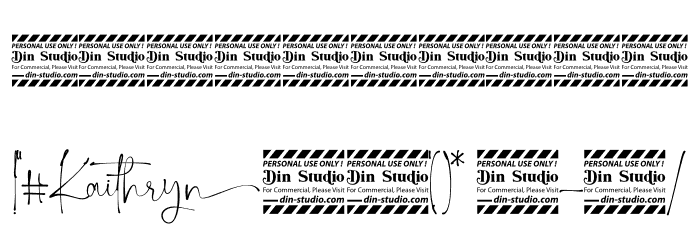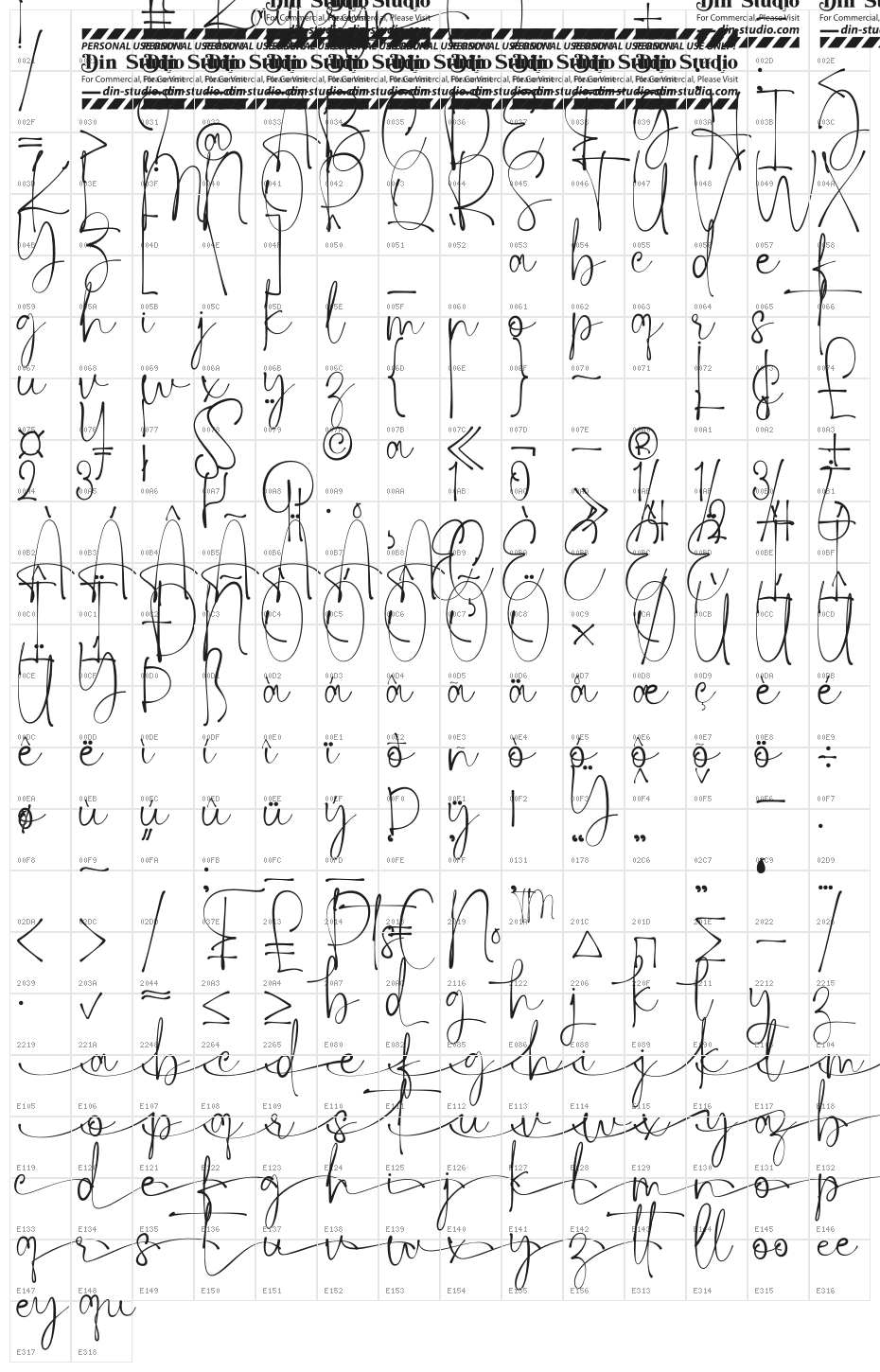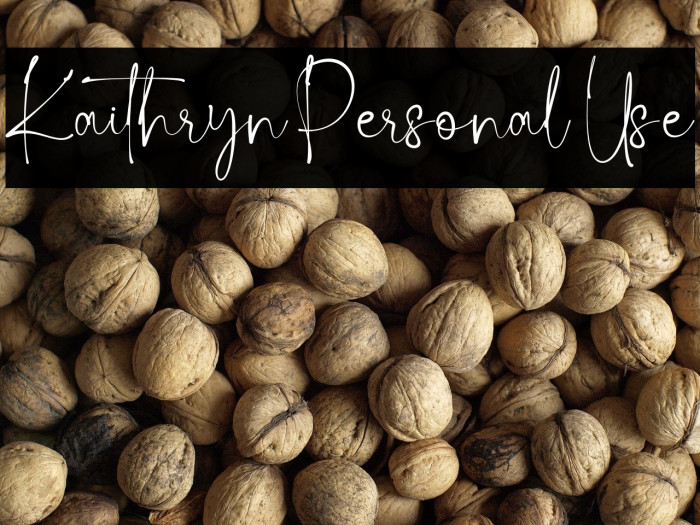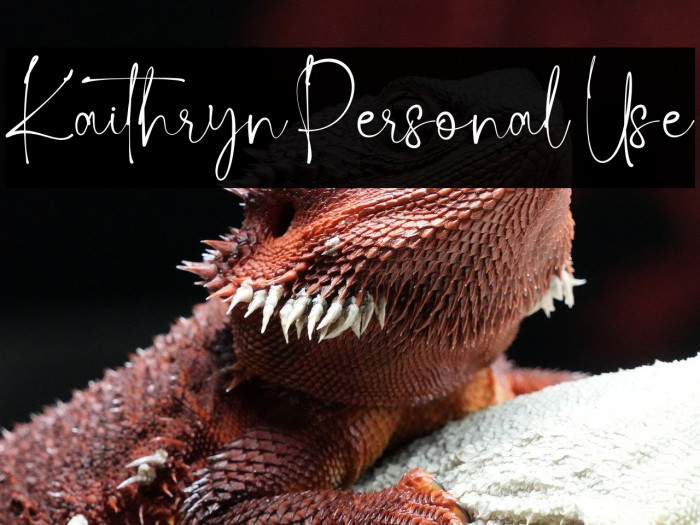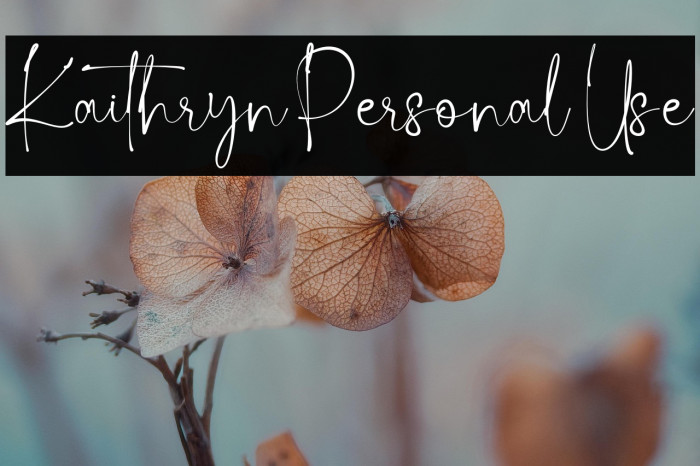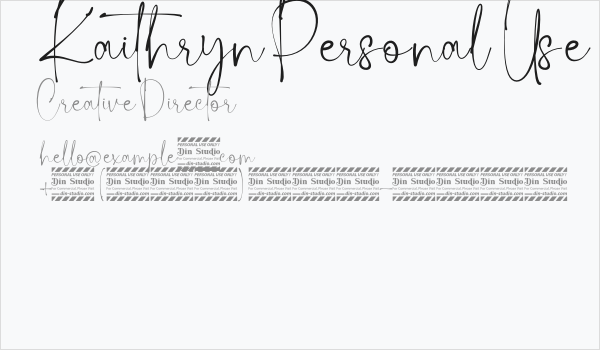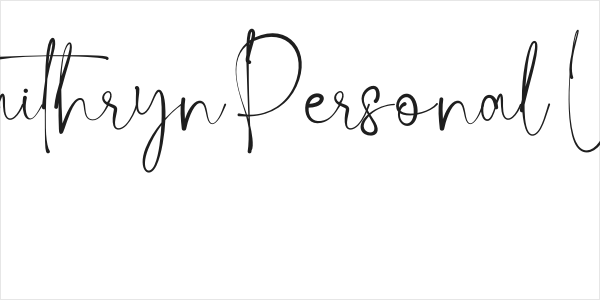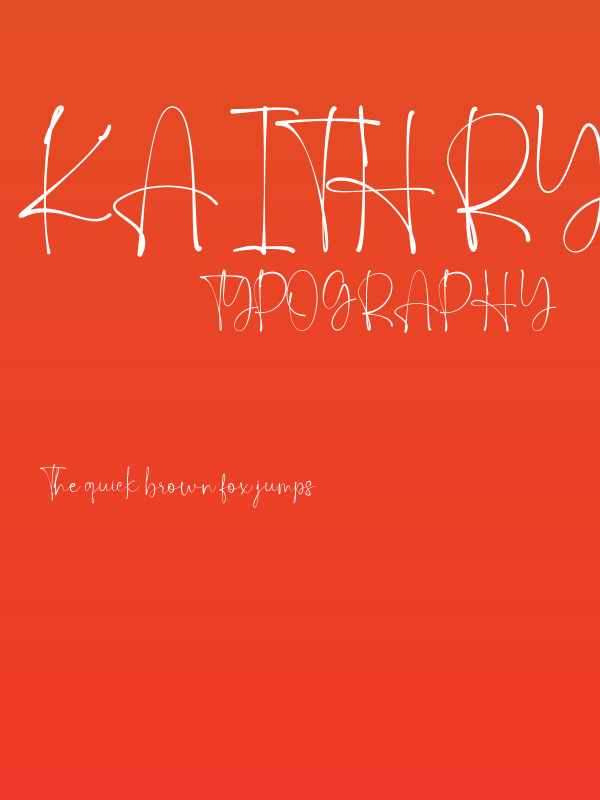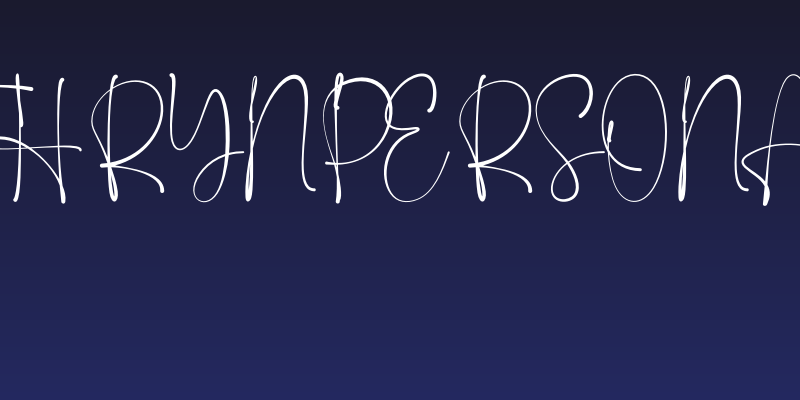
Kaithryn Personal Use Font
Kaithryn Personal Use Description
This font features a whimsical and elegant handwritten style, characterized by its flowing and interconnected letterforms. The uppercase letters are tall and slender, with a playful looped design that adds a touch of sophistication. The lowercase letters maintain a consistent fluidity, with some characters extending below the baseline, enhancing its artistic flair. The numbers and special characters are crafted with the same attention to detail, ensuring a cohesive look throughout. This font's unique style makes it ideal for creative projects that require a personal and artistic touch.